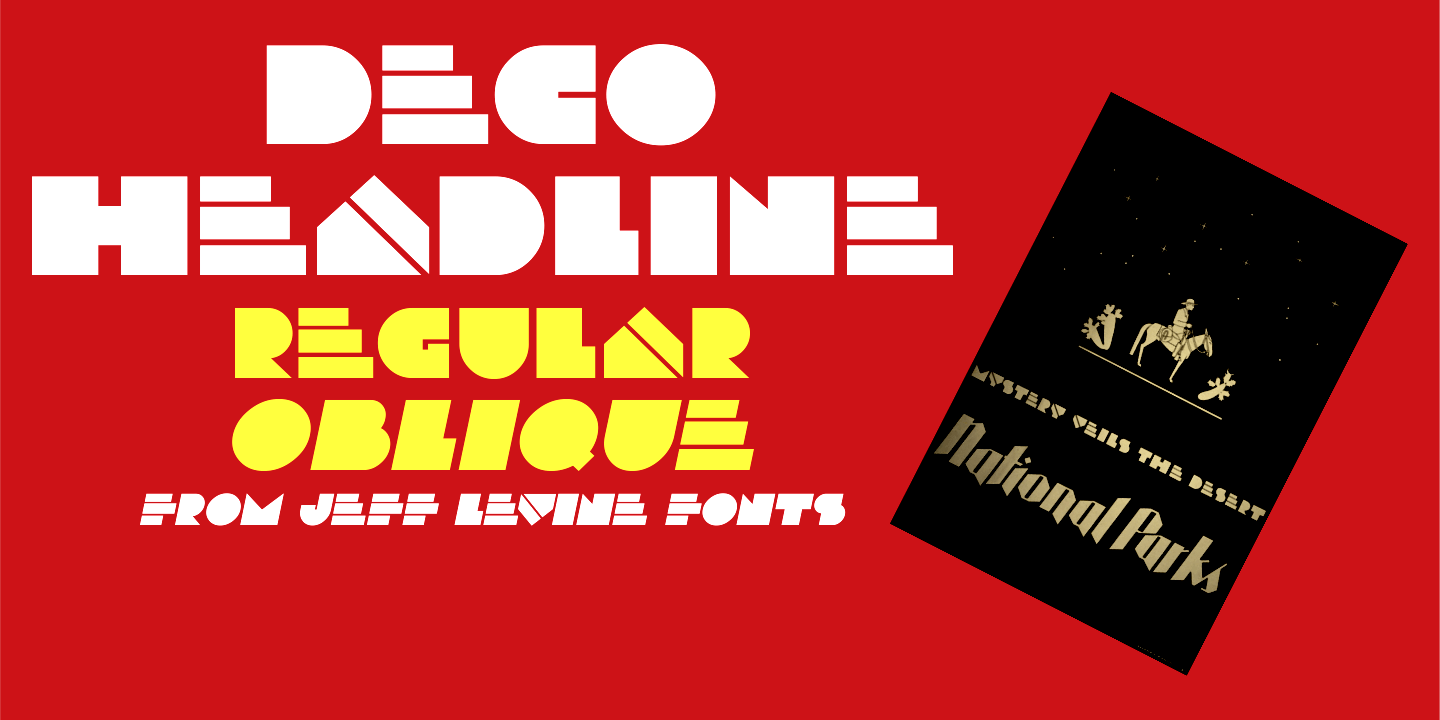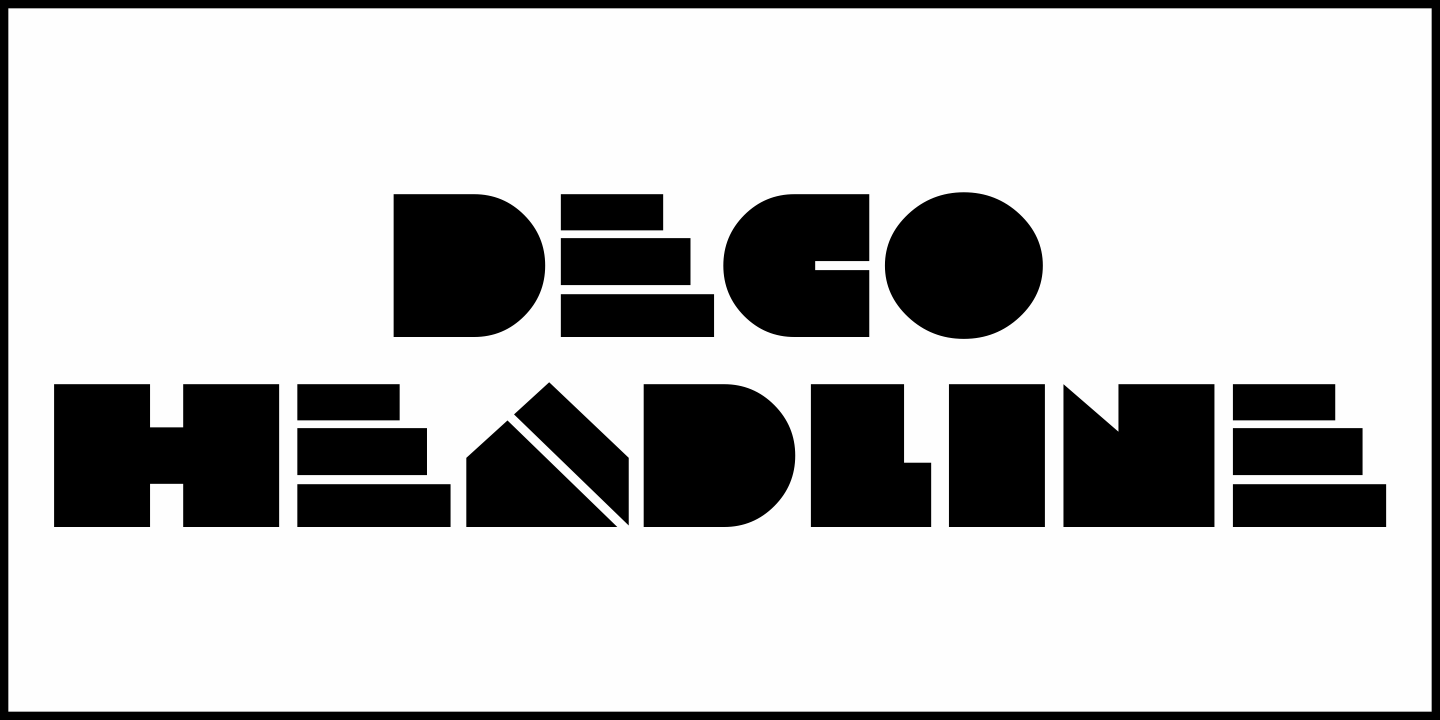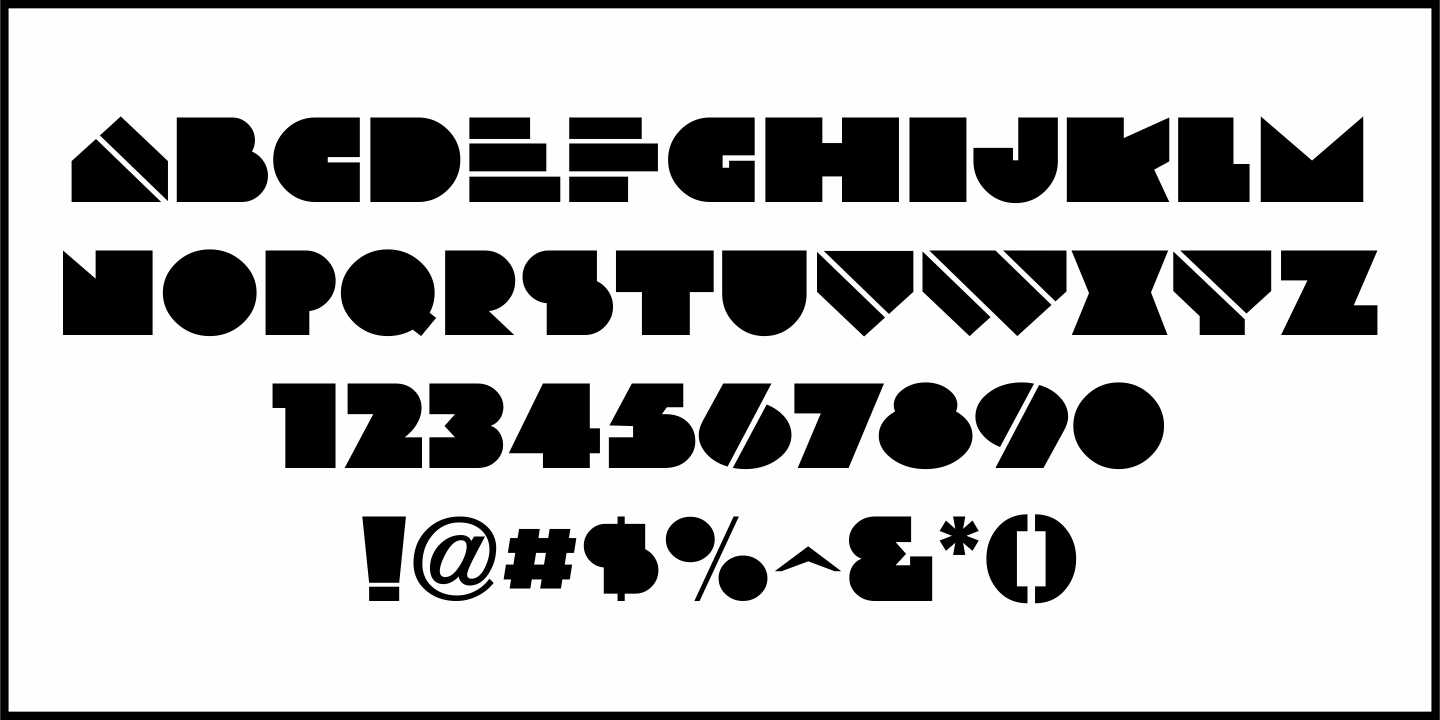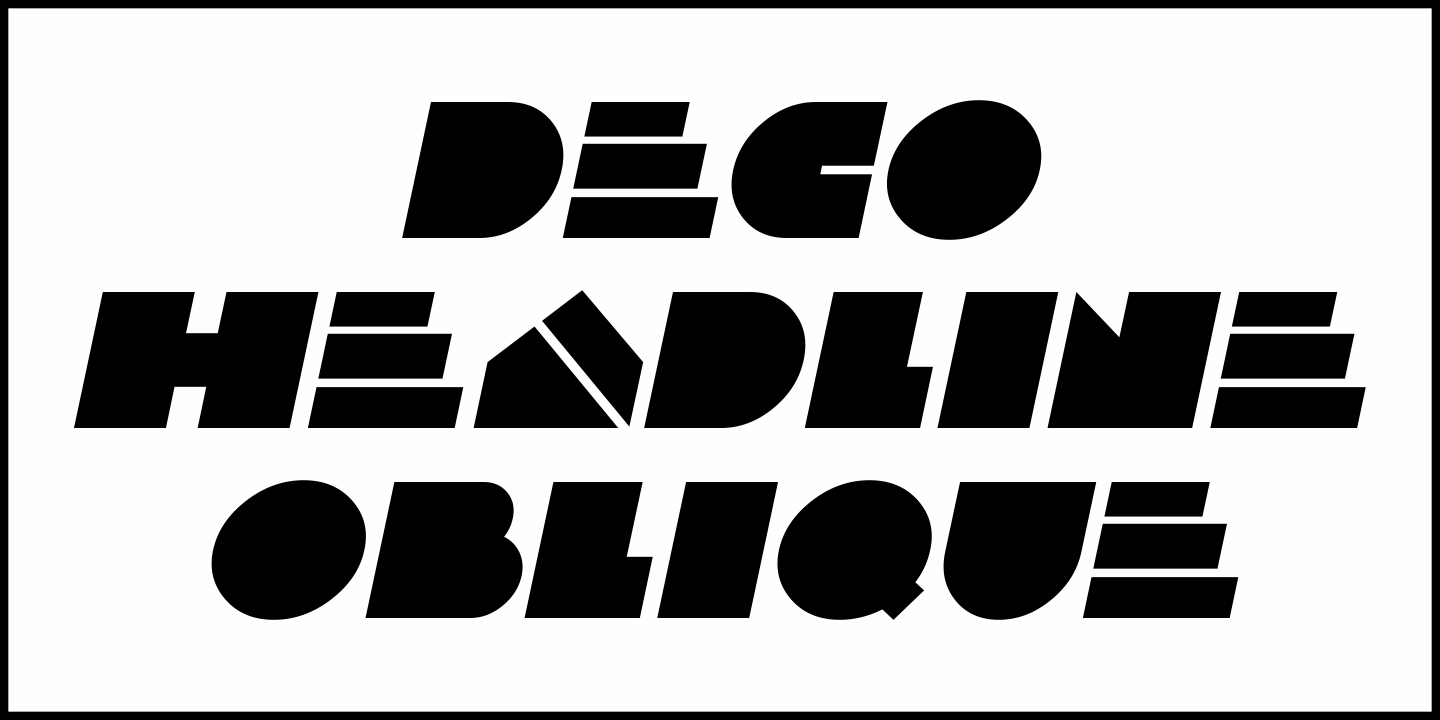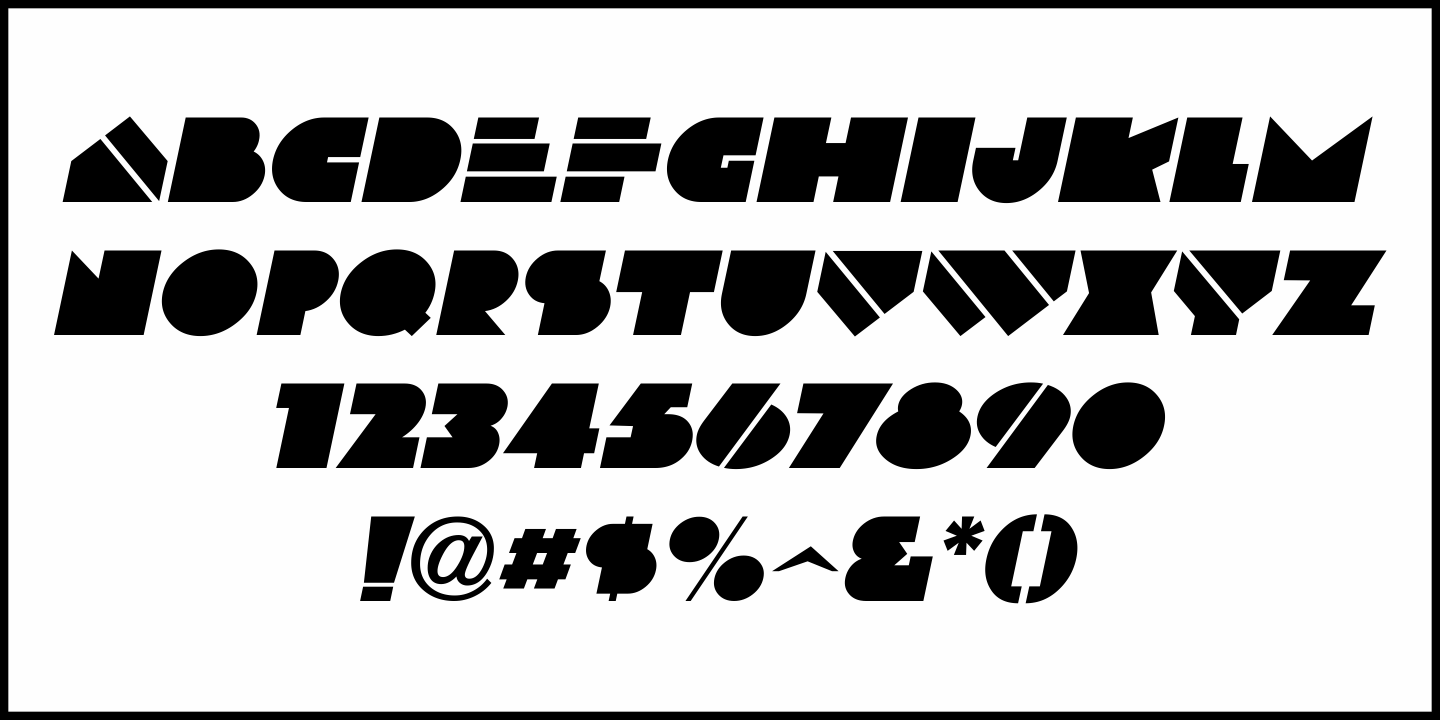
Deco Headline
A National Parks poster from 1934 entitled "Mystery Veils the Desert" was created and hand lettered by Dorothy Waugh and featured a highly unique and stylized Art Deco style of text.
The ultra bold sans serif design packs a punch when recreating period pieces of the era.
This is now available as Deco Headline JNL in both regular and oblique versions.